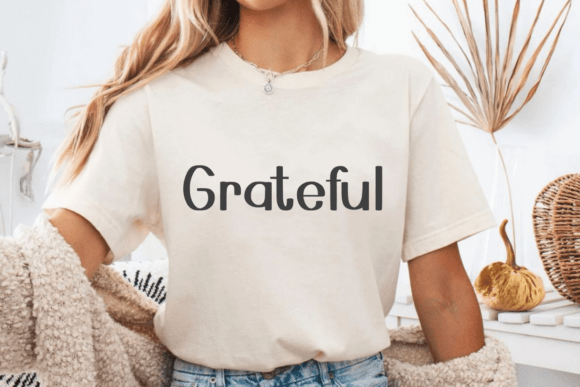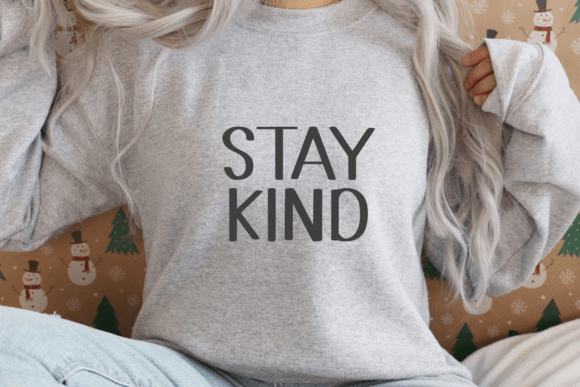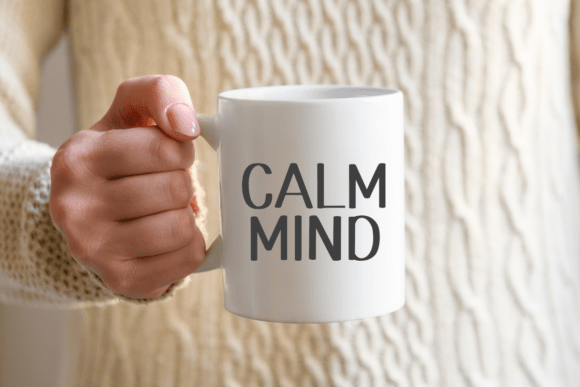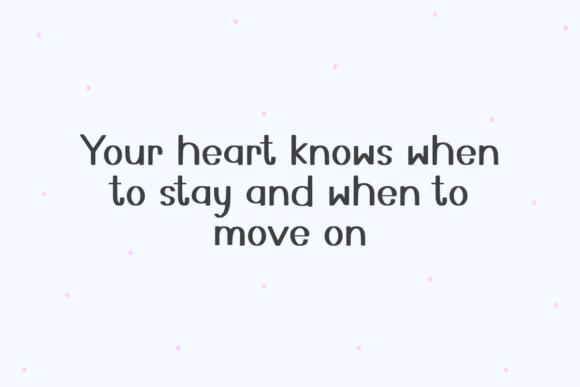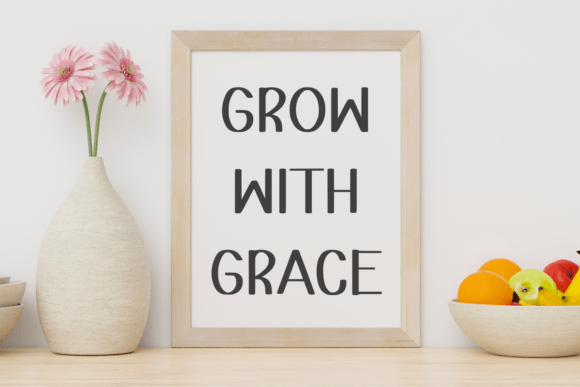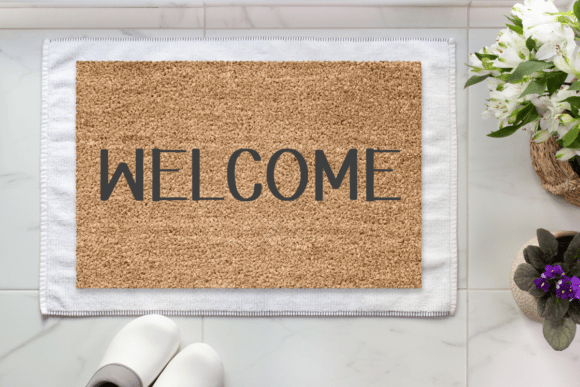
Discover the Joy of Handwritten Perfection with Always Positive Font
Do you remember the thrill of creating something with your own hands as a child? Be it drawing, painting, or writing, the feeling of bringing your imagination to life was pure magic. As a creative, you likely still cherish those moments, and that’s exactly why we’re excited to introduce you to Always Positive Font – a charming handwriting font designed to evoke the warmth and friendliness of handwritten notes.
Always Positive Font is the perfect addition to your crafting arsenal, ideal for projects that require a soft, natural touch. Its simple strokes and smooth curves make it easy to cut using Cricut and Silhouette, and its versatility is unmatched – use it for quotes, greeting cards, kids’ labels, and more.
Always Positive Font Key Features
- Font Family: Always Positive Font is a custom-designed sans-serif font family.
- Unique Characteristics: Features a unique blend of modern and friendly design elements, with a focus on positive and uplifting aesthetics.
Always Positive Font Review
As a designer, I was excited to dive into the Always Positive Font. Here’s my honest take:
- Unique and cheerful aesthetic that’s perfect for motivational and inspirational content.
- Good legibility, even at smaller font sizes, making it suitable for body text.
- Wide range of language support, including many non-Latin scripts.
- Easy to customize and pair with other fonts for a cohesive design.
- Slightly lacking in expressiveness and nuance, which can make it feel a bit one-dimensional.
- May not be the best choice for formal or professional content, as it can come across as too playful.
- Some users may find the font too ‘loud’ or ‘in-your-face’, which can be overwhelming.
Overall, I think the Always Positive Font is a solid choice for projects where you want to convey a sense of optimism and energy. While it may not be perfect for every design task, it’s a great addition to any font library. Just be mindful of its limitations and use it in contexts where it will truly shine.
The Always Positive Font is ideal for:
– Inspirational quotes and motivational posters.
– Branding and logo design.
– Social media graphics and advertisements.
– Any project that requires a friendly and approachable tone.